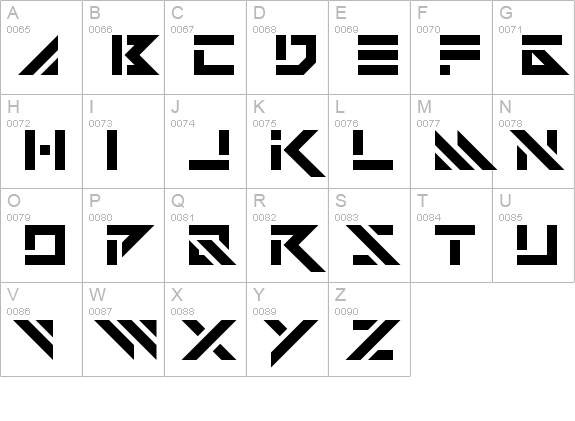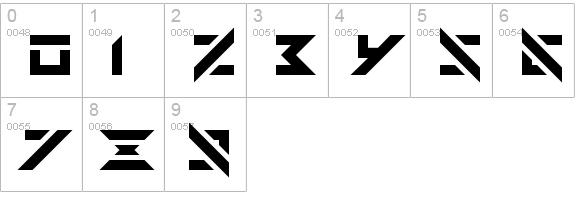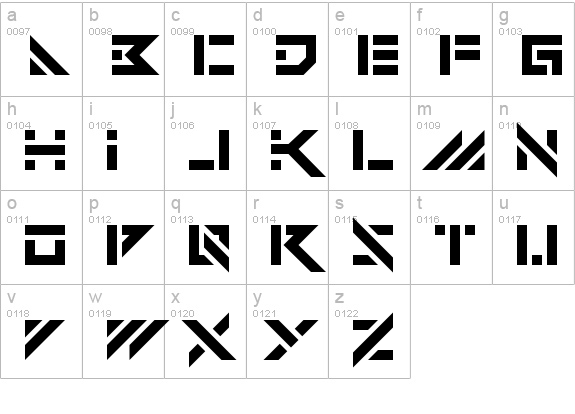
Vermin Vibes Dystopia Regular is the standard, neutral variant in the Vermin typeface family \xE2\x80\x94 well suited to general body text, paragraphs, and standard typographic work.
Vermin Vibes Dystopia Regular font is a captivating and edgy typeface that exudes a futuristic and dystopian vibe. With its sharp angles and unique design, this font is perfect for conveying a sense of rebellion and chaos in your projects. What sets Vermin Vibes Dystopia Regular font apart is that it is not only visually striking but also freely available to download at FontsMarket.com. This means that you can easily access and use this cutting-edge font in your designs without any cost. Whether you're working on posters, logos, or any other creative project that requires a touch of urban grit, Vermin Vibes Dystopia Regular font is sure to make a statement. Embrace the rebellious spirit and add a touch of dystopian flair to your designs with this striking and free font.